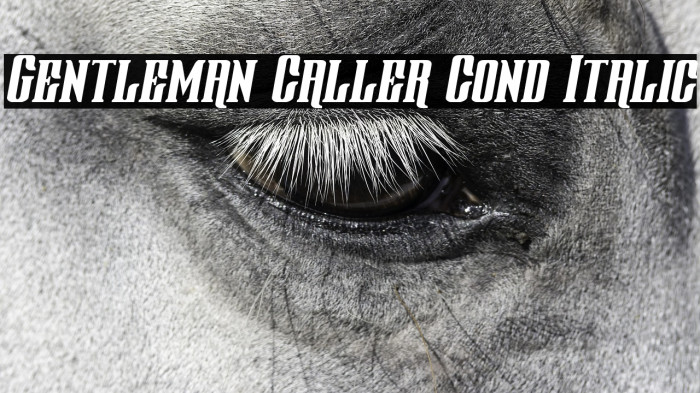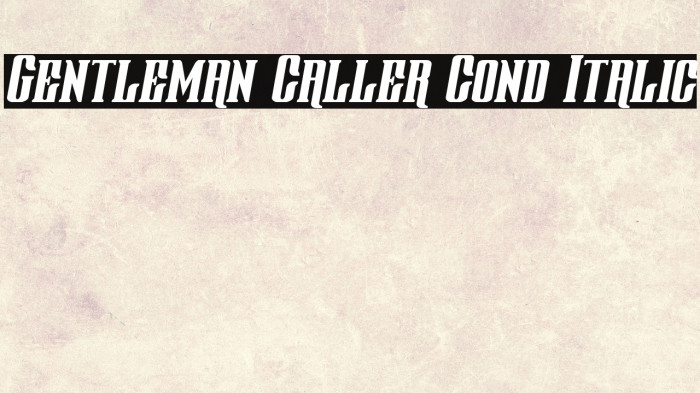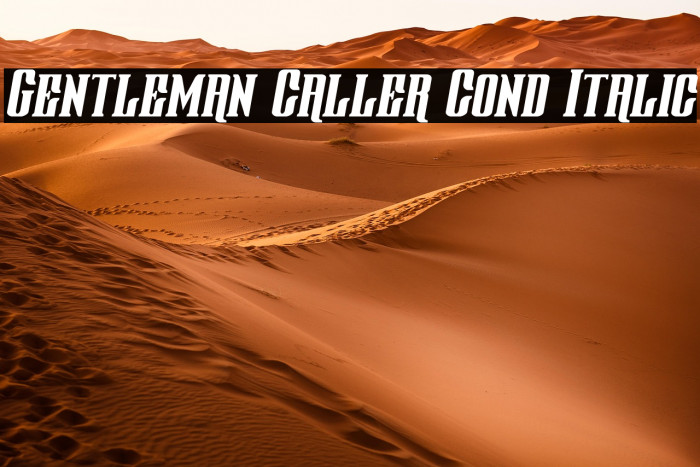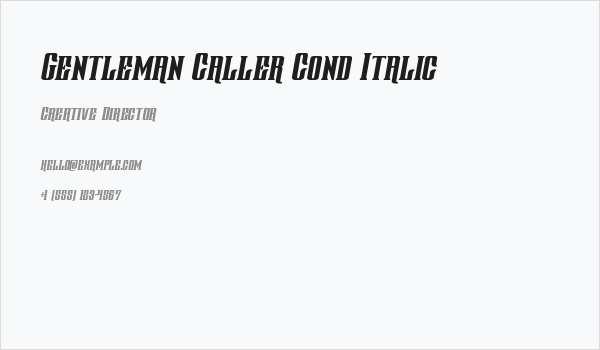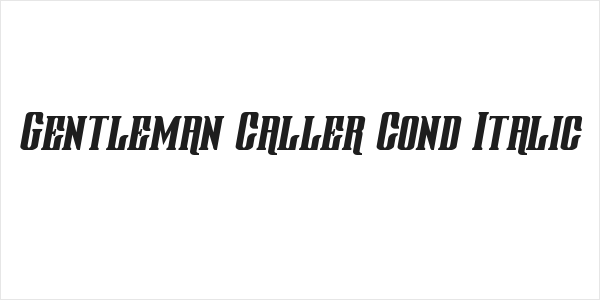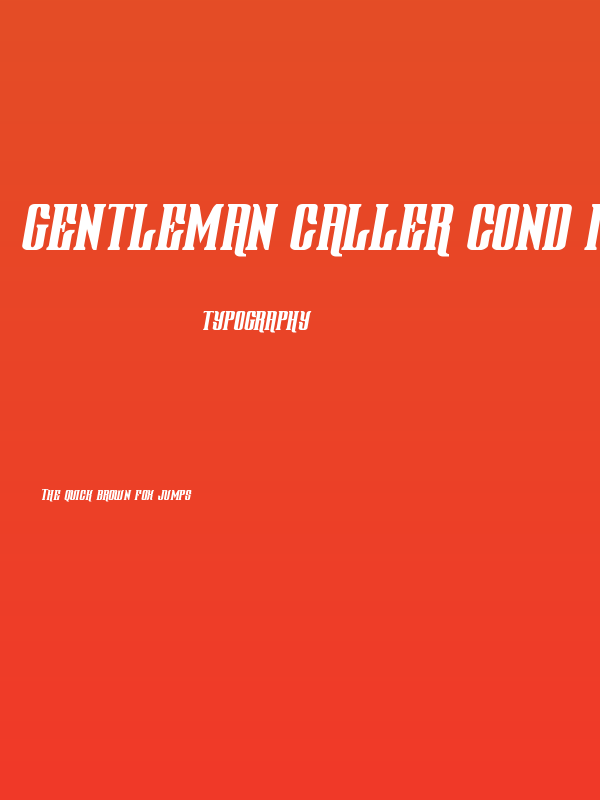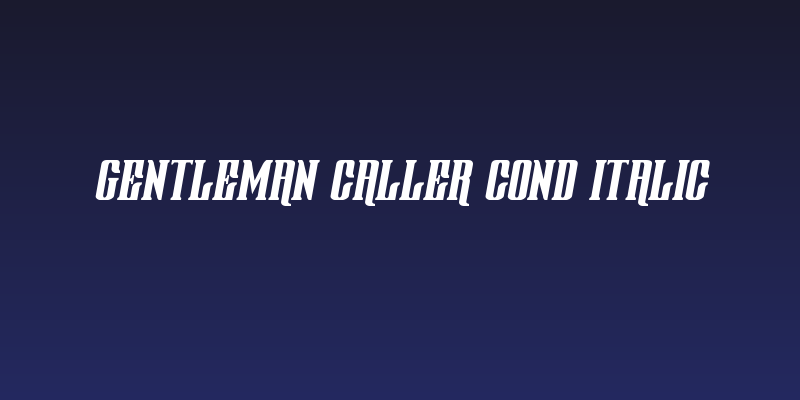
Gentleman Caller Cond Italic Font
Gentleman Caller Cond Italic Description
This font exudes a bold and confident presence with its condensed and italicized style. The characters are sharply defined, featuring strong vertical strokes and slightly curved serifs that add a touch of elegance. The italic slant gives it a dynamic and forward-moving appearance, making it ideal for attention-grabbing headlines or impactful logos. The numbers and special characters maintain the same boldness and style, ensuring consistency across all uses. Its unique style is both modern and reminiscent of vintage signage, making it versatile for various design applications.